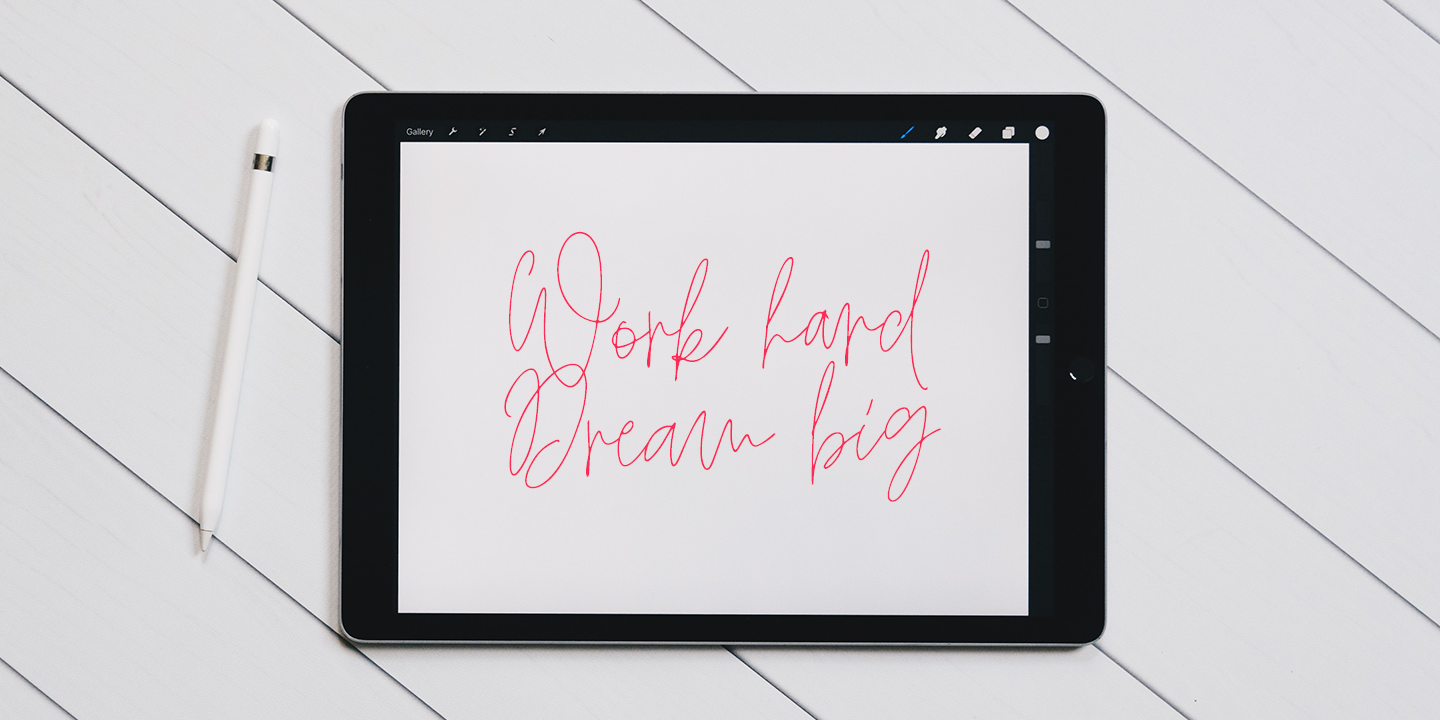
Hamilton Signature Script Free Download
Hamilton Signature Script Font Free Download
Hamilton Signature Script Font is perfect for luxury branding, elegant invitations, prestigious legal documents, executive signatures, upscale restaurant menus, high-end business cards, sophisticated wedding stationery, exclusive event materials, and distinguished corporate communications. This refined typeface brings executive elegance and signature sophistication to projects requiring distinguished typography with authoritative appeal and prestigious character.
What makes Hamilton Signature Script Font exciting is its executive refinement that captures the distinguished elegance of handwritten signatures and prestigious penmanship with remarkable sophistication and authoritative grace that commands respect and admiration. The font features flowing script letterforms with executive precision and distinguished character that reflects the confidence of leadership and the elegance of formal correspondence. Its prestigious personality and refined nature make it irresistible for luxury brands seeking typography that communicates authority while establishing trust through sophisticated visual storytelling and executive-level presentation quality.
The Hamilton Signature Script Font family includes elegant weights and signature styles: Light, Regular, Medium, Bold, and flourished variations with executive alternates and prestigious ligatures. Each weight maintains the font's distinguished character while offering designers complete flexibility for luxury branding and executive design applications requiring sophisticated presentation and authoritative elegance.
Whether you're designing for executive services or luxury establishments, Hamilton Signature Script Font Free Download provides designers with a prestigious, signature-focused typeface solution. The font's executive aesthetics and sophisticated styling make it ideal for law firms, luxury hotels, executive consulting, and prestigious financial institutions. Its distinguished presence ensures your message communicates authority and sophistication while maintaining excellent signature readability. The comprehensive character set includes executive symbols and prestigious decorations, making it perfect for creating authoritative headlines and brand identities that celebrate executive excellence and establish meaningful connections with discerning audiences seeking distinguished professional services and sophisticated luxury experiences.